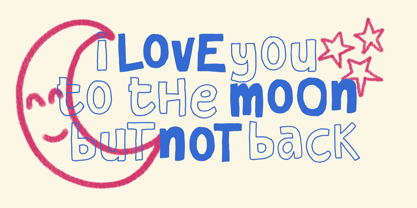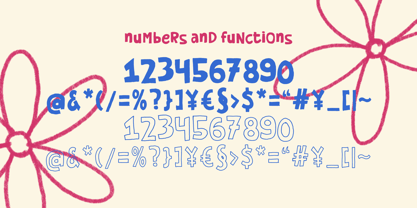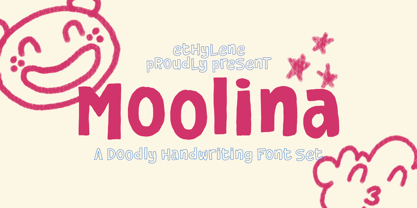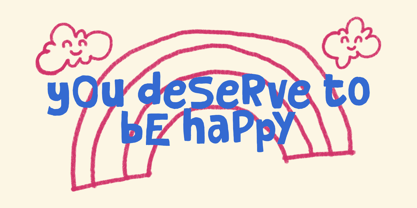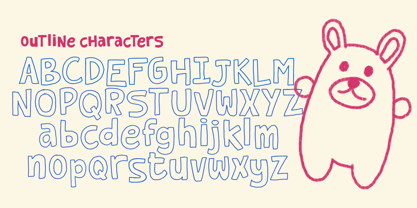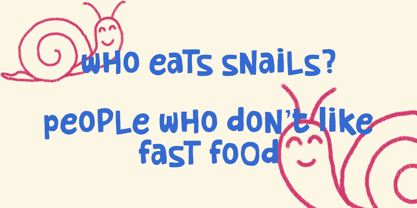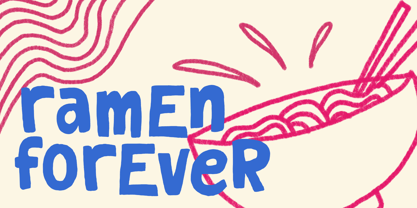
Moolina
von Ethylene
Die Schriftfamilie Moolina wurde von Cherly Nugroho entworfen und von Ethylene veröffentlicht. Moolina enthält 2 Stile und Familienpaketoptionen.
Moolina is a font with a children's handwriting style. This font boasts a very unique style, further enhanced by ligature features that make it even more distinctive.
Moolina comes in two versions: solid and outline.
This font is suitable for various purposes such as children's book covers, food posters, social media posts, packaging, labels, YouTube thumbnails, merchandise, and more.
Designer: Cherly Nugroho